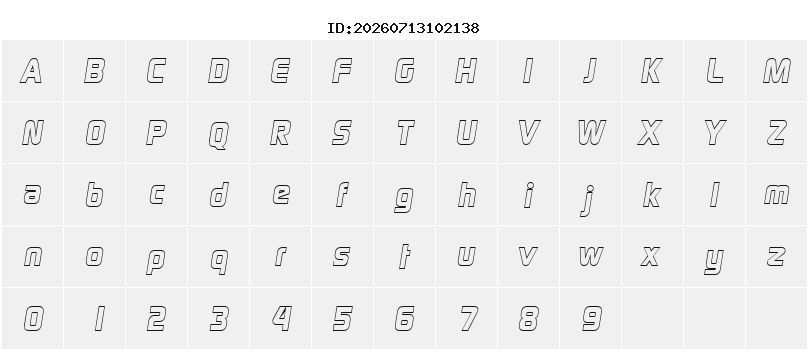
RandyBeckerOutline-ExtraBold Preview
• Font Name: RandyBeckerOutline-ExtraBold
• Font ID: Alts:RandyBeckerOutline-ExtraBold-Italic
• Full Font Name: RandyBeckerOutline-ExtraBold-Italic
• PostScript Name: RandyBeckerOutline-ExtraBold-Italic
About RandyBeckerOutline-ExtraBold.ttf
RandyBeckerOutline-ExtraBold.ttf is a modern, elegant sans-serif font designed for ultimate readability and visual harmony. Perfect for branding, headlines, web design, and print materials.